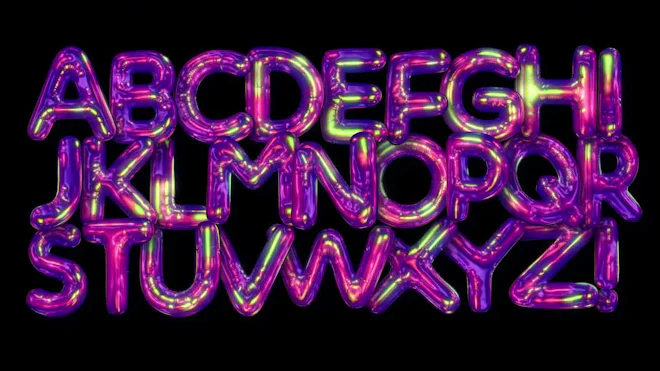
A pack of shimmering 3D reflective alphabet letters in an iridescent bubble typeface style on alpha channel.
The pack includes 26 individual letters plus an exclamation mark.